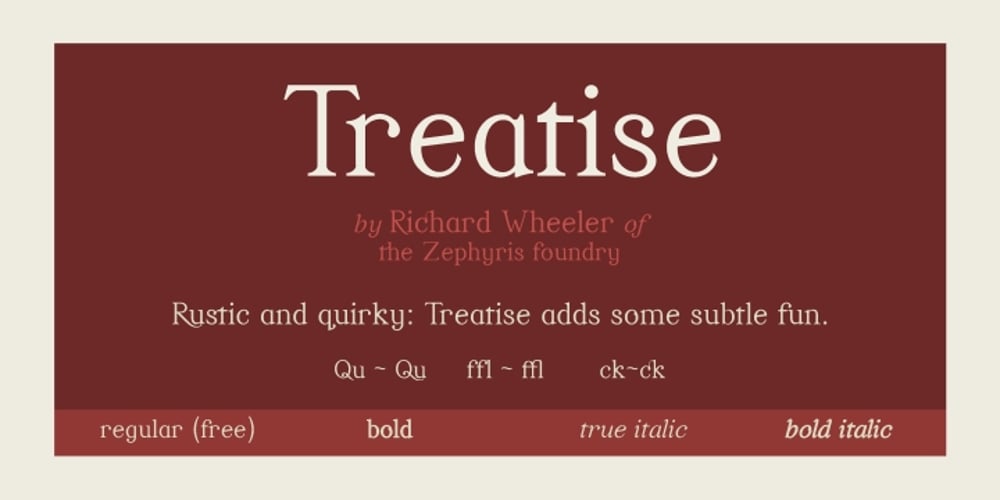
Treatise Font Family was designed by Richard Wheeler and published by Zephyris. Treatise contains 4 styles and family package options. Treatise was born in a notebook at the back of a boring lecture on immunology with the simple thought of “How can I make a serif more fun?” When writing a scientific treatise, there are not many options for making it enjoyable. However, some little quirks and fun features in the font can take the serious edge off the writing…. Treatise is a light and open serif with some design quirks, which give it a slightly calligraphic feel; a single -storey “a” and “g,” a visible stroke mark on the “o,” and a curved arm on the “k.” These features are subtle enough to fit into a paragraph of text but bold enough to give a title some character. The Treatise family includes a true italic and a heavy-struck style bold, and several OpenType features; standard and discretional ligatures, contextual alternatives, and different figure styles. The character coverage includes Basic Latin, Latin-1 Supplement, and Latin Extended-A and will support most Latin-alphabet languages, including languages with more exotic characters such as Icelandic and Maltese.